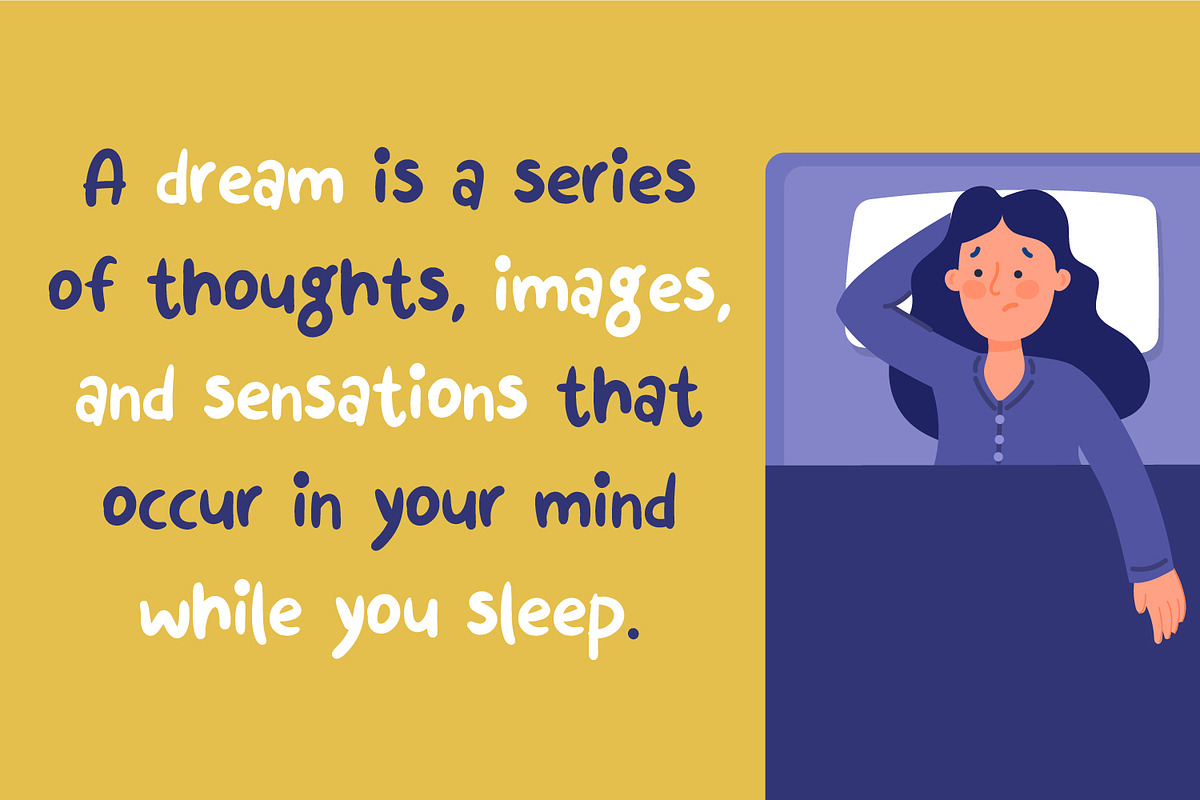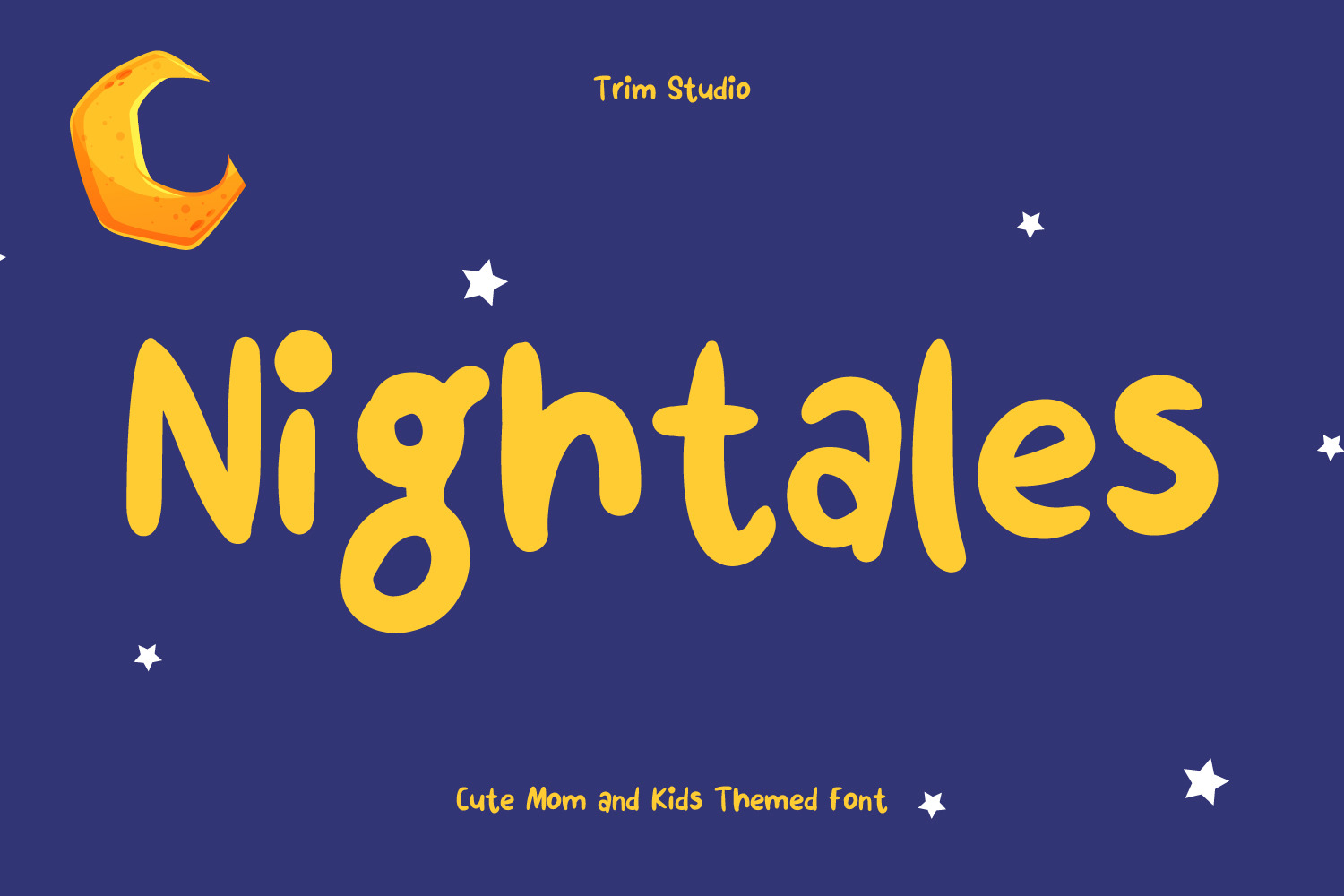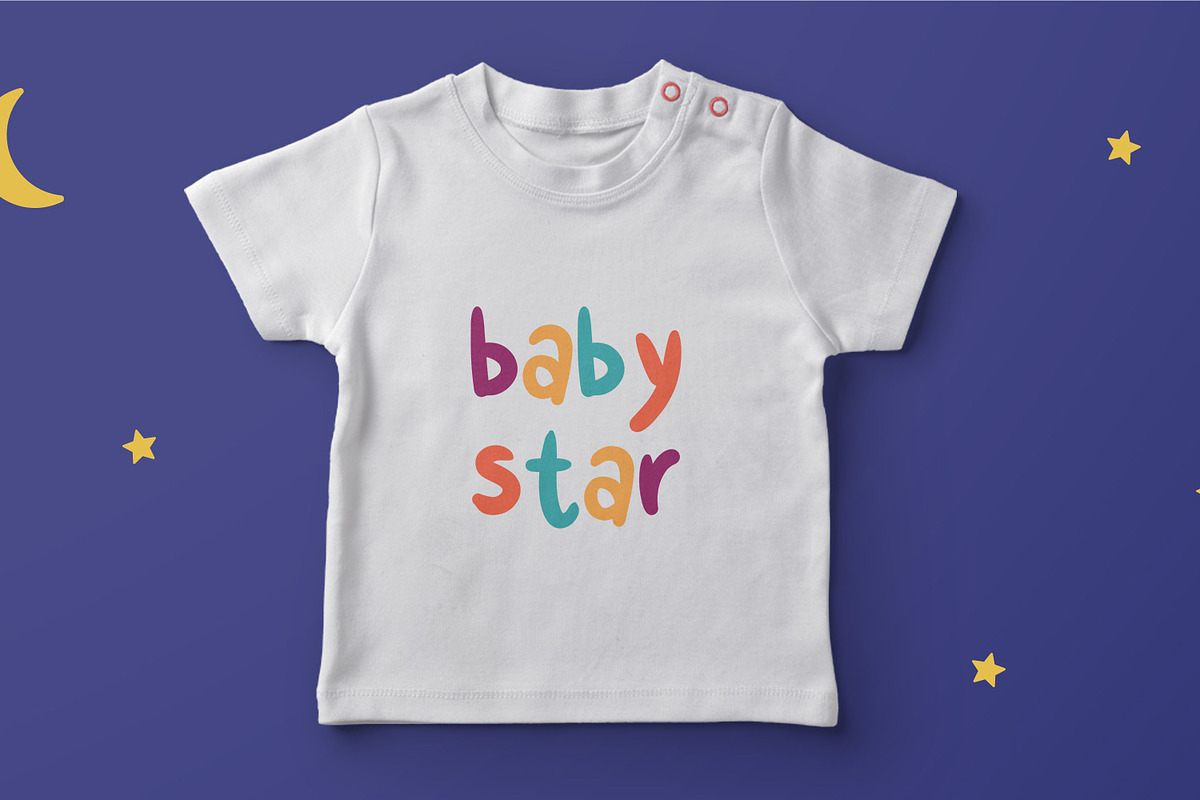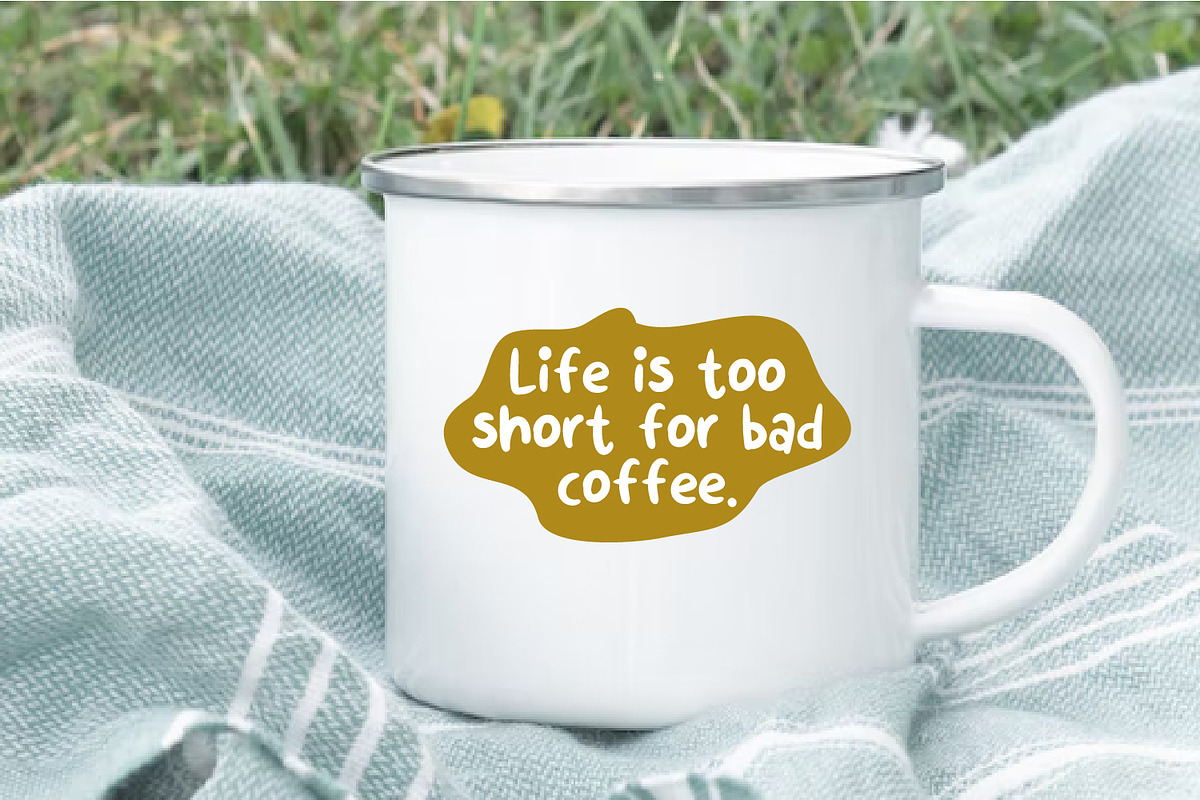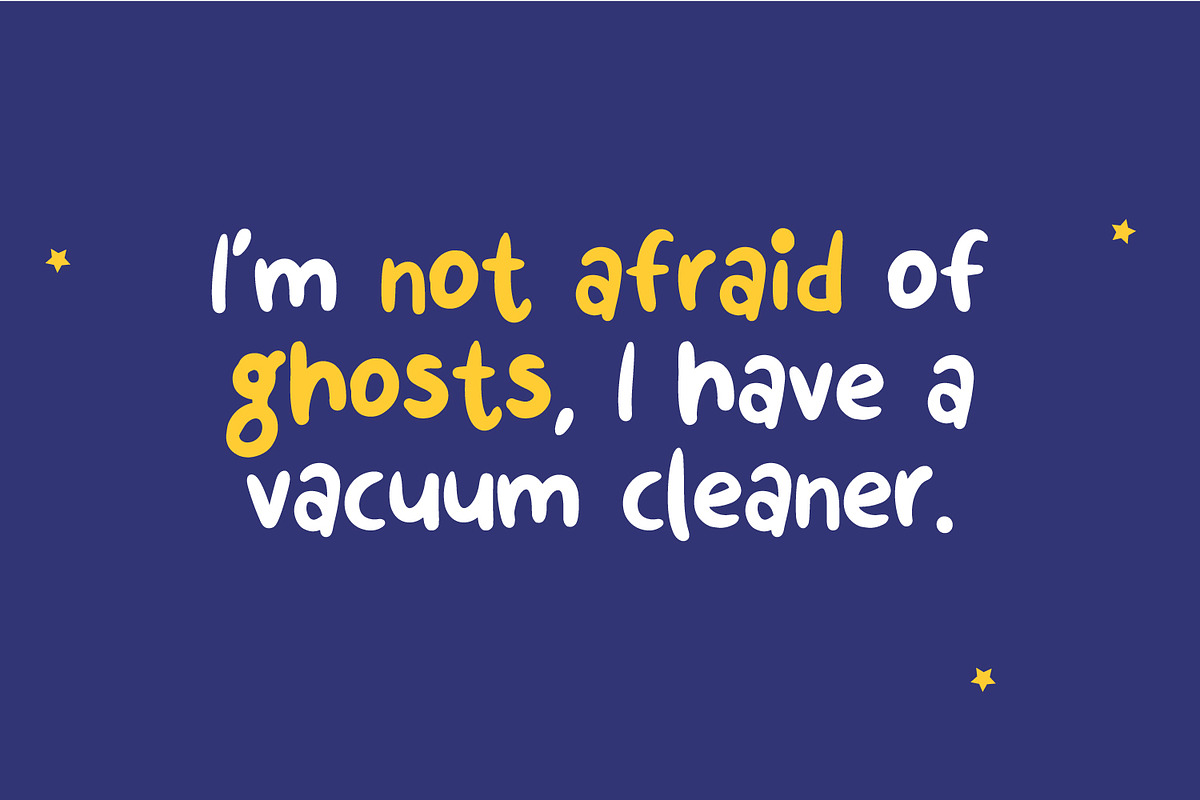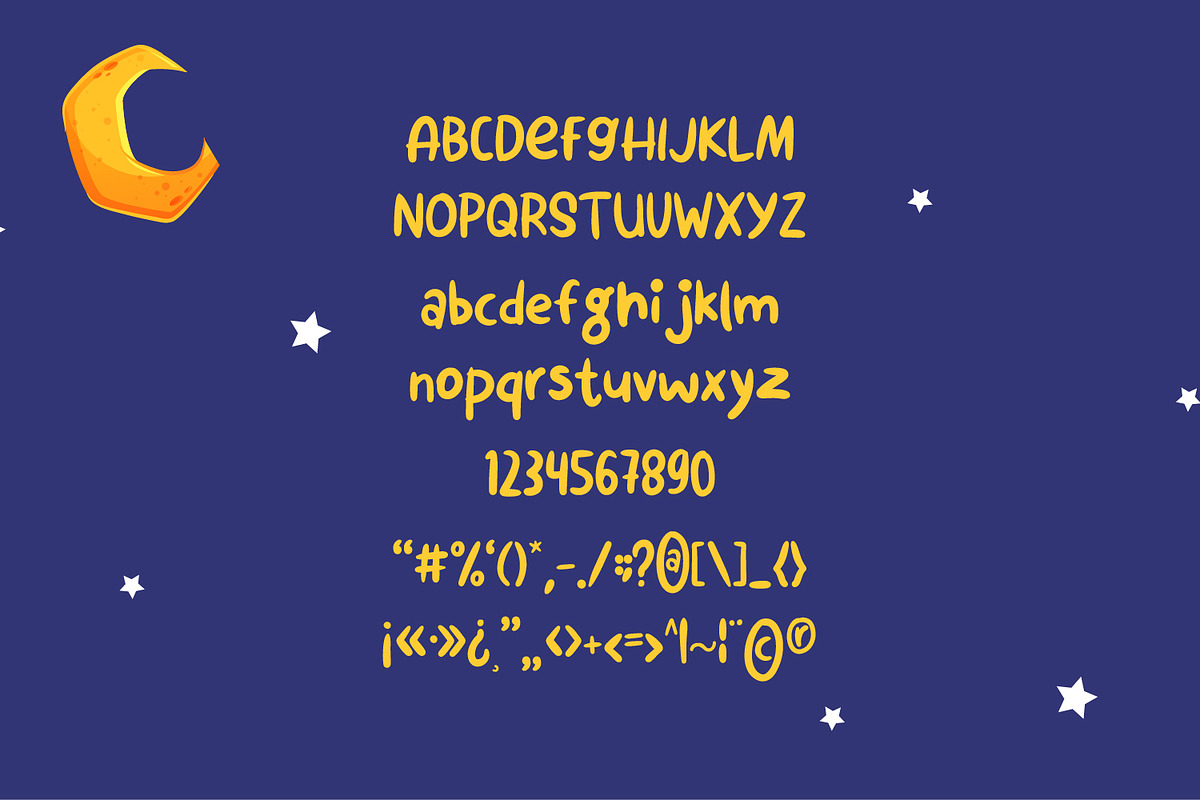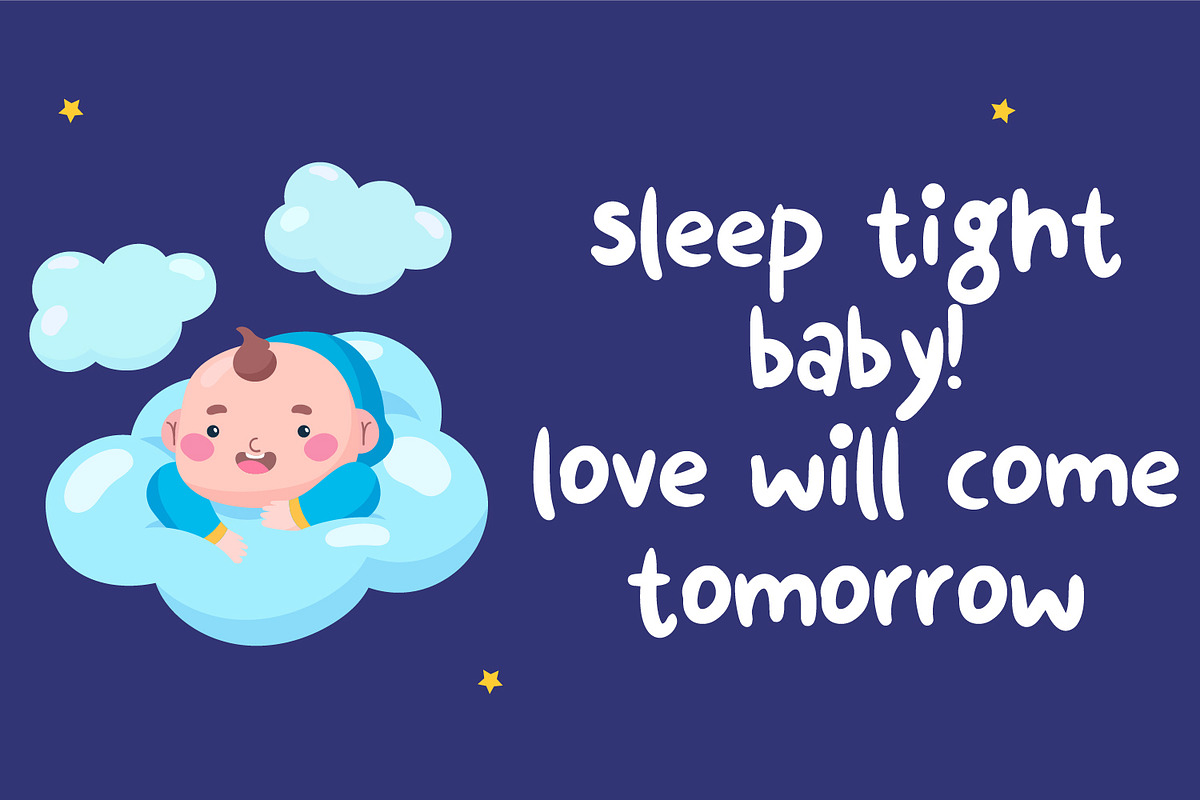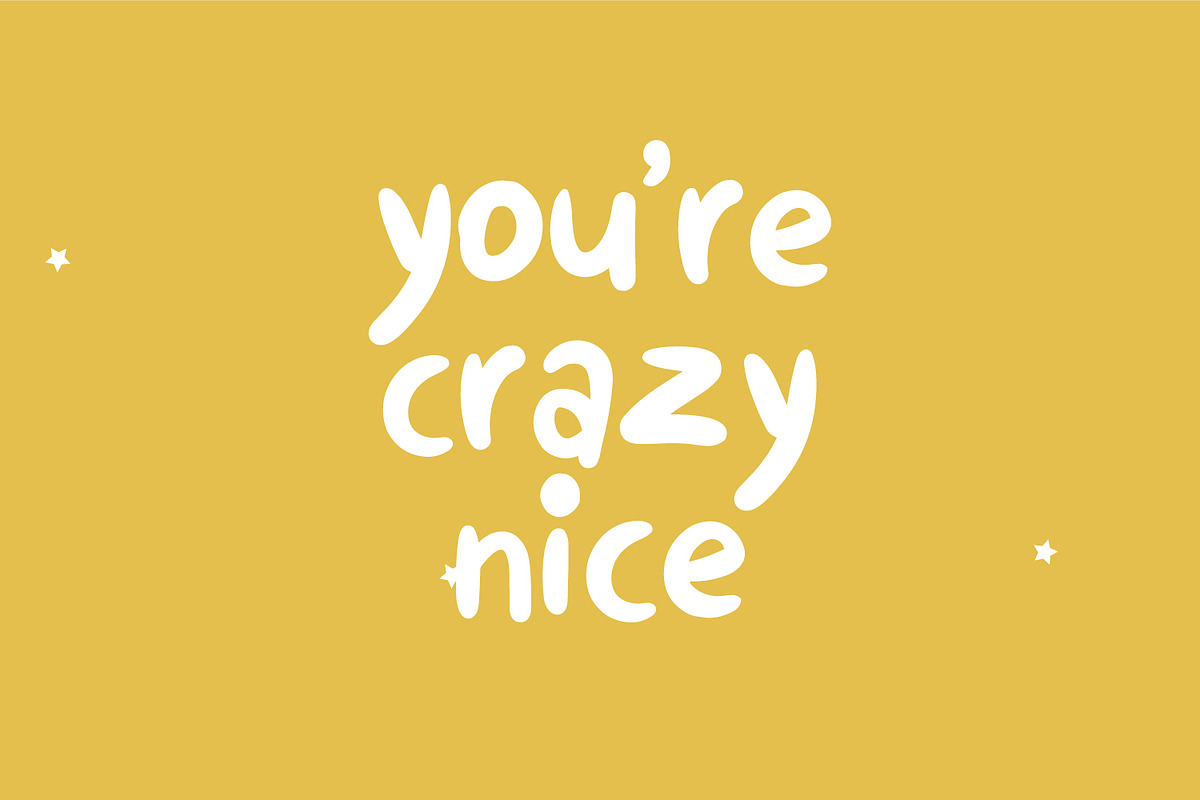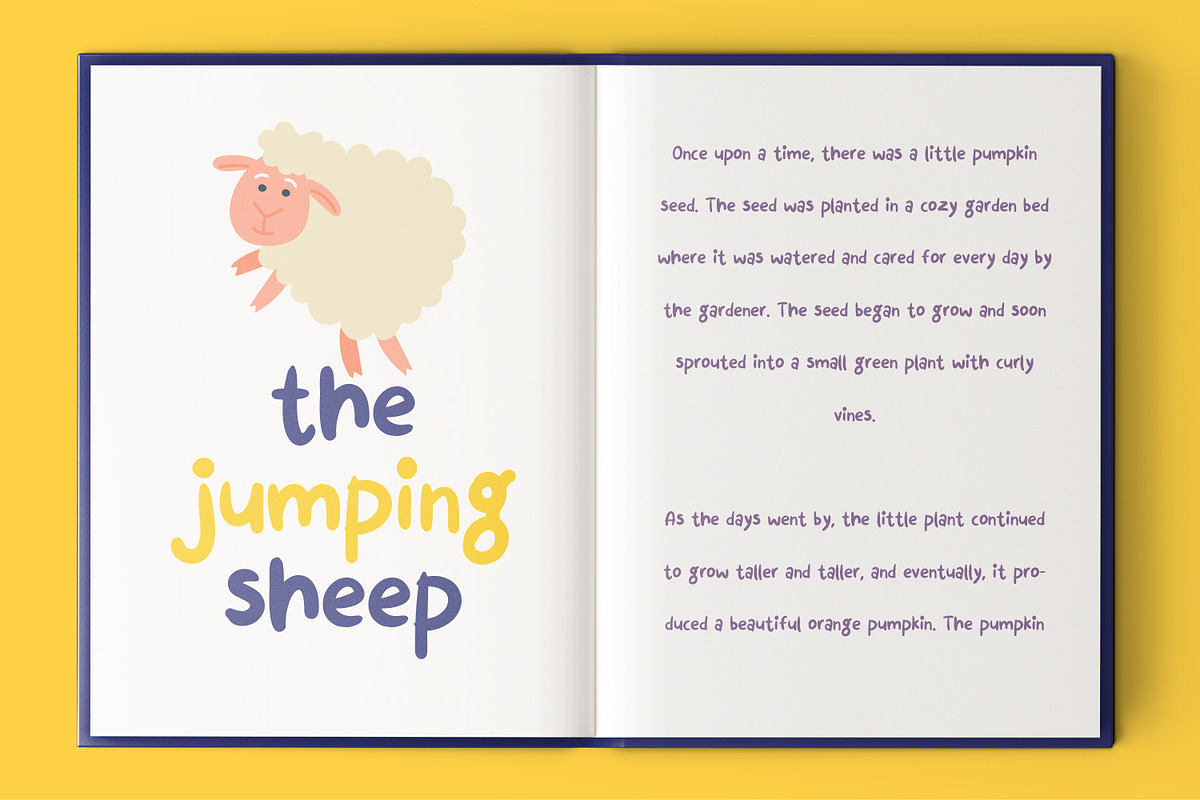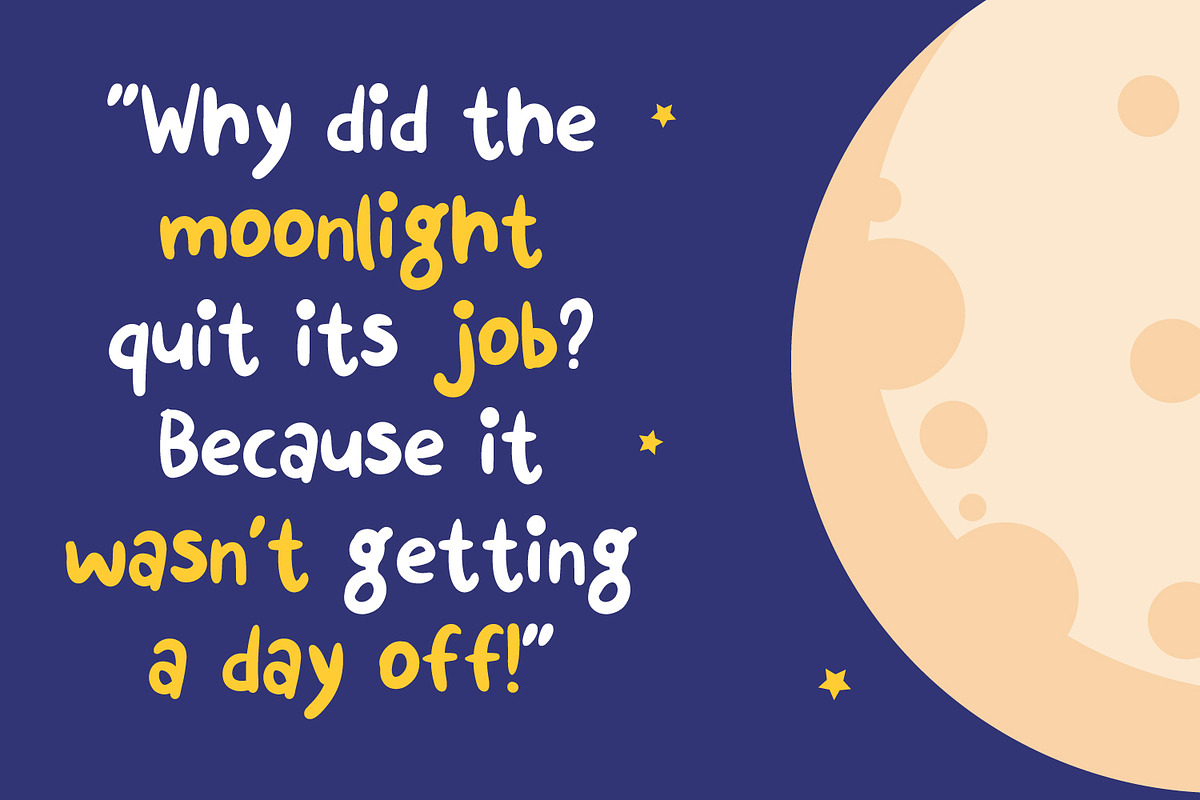
Nightales - Halloween Cute Font
Nightales a simple, bold and light font style perfect for kids' books! With a playful and rounded design, this font is both whimsical and fun, making it perfect for capturing the imagination of young readers.
Let Nightales bring joy and excitement to your next kids' book project!
even so contains All Standard glyphs and punctuations